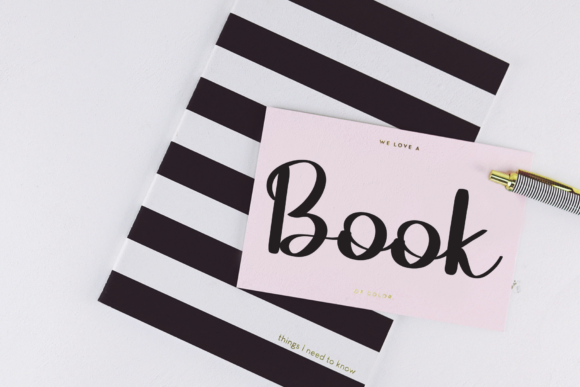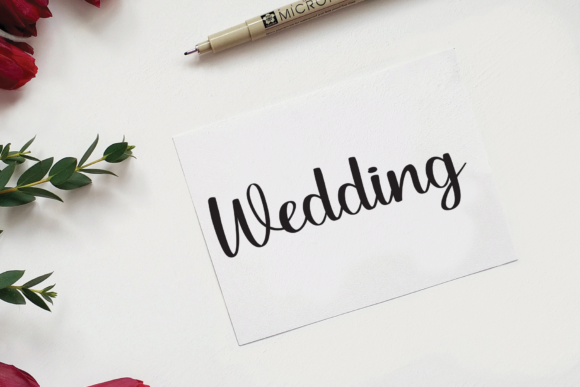
Hello Baby Font
db-ku.com - Script & Handwritten -- Hello Baby is a playful script font. It looks stunning on wedding invitations, thank you cards, quotes, greeting cards, logos, business cards and every other design which needs a customized touch.